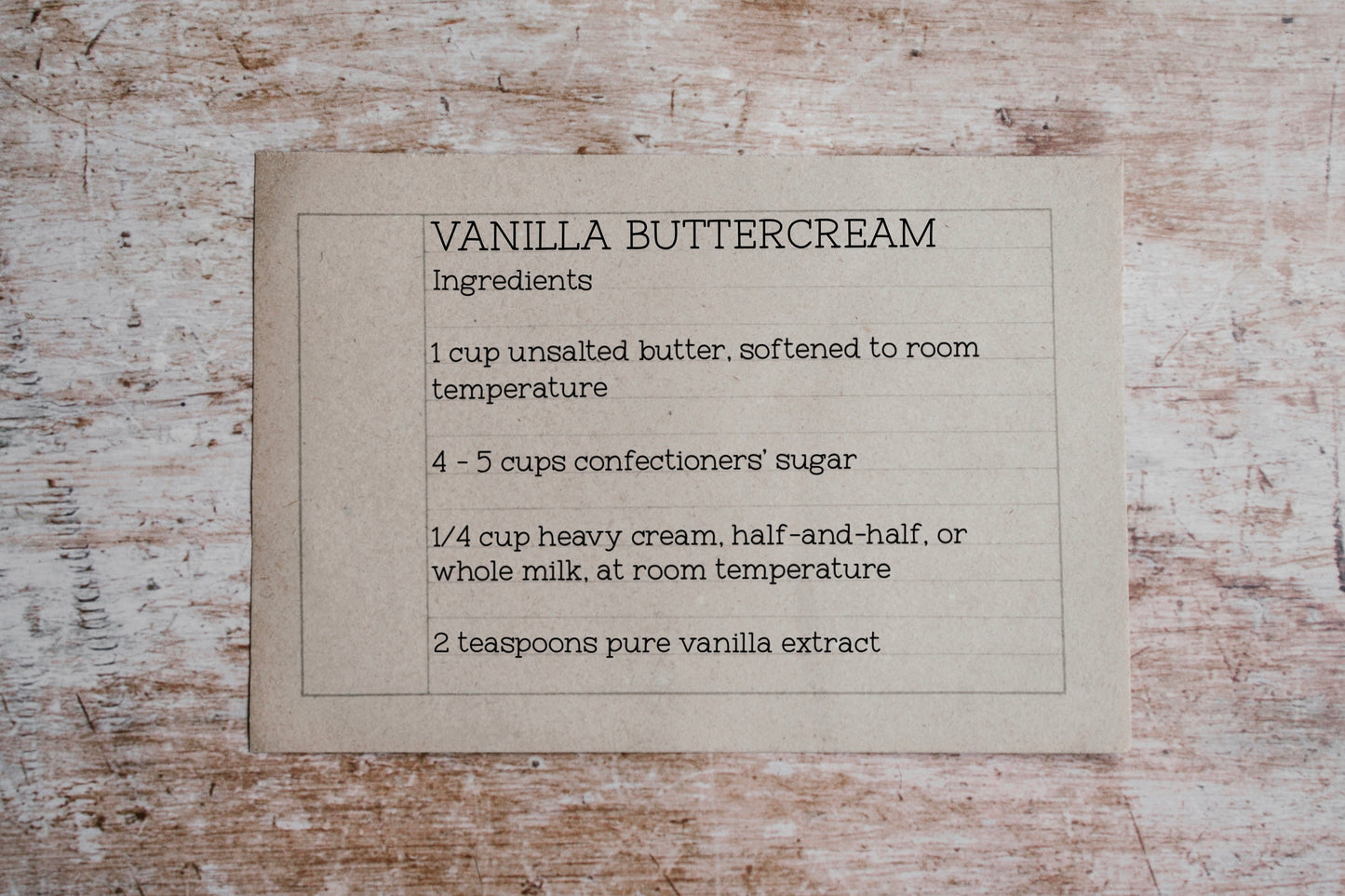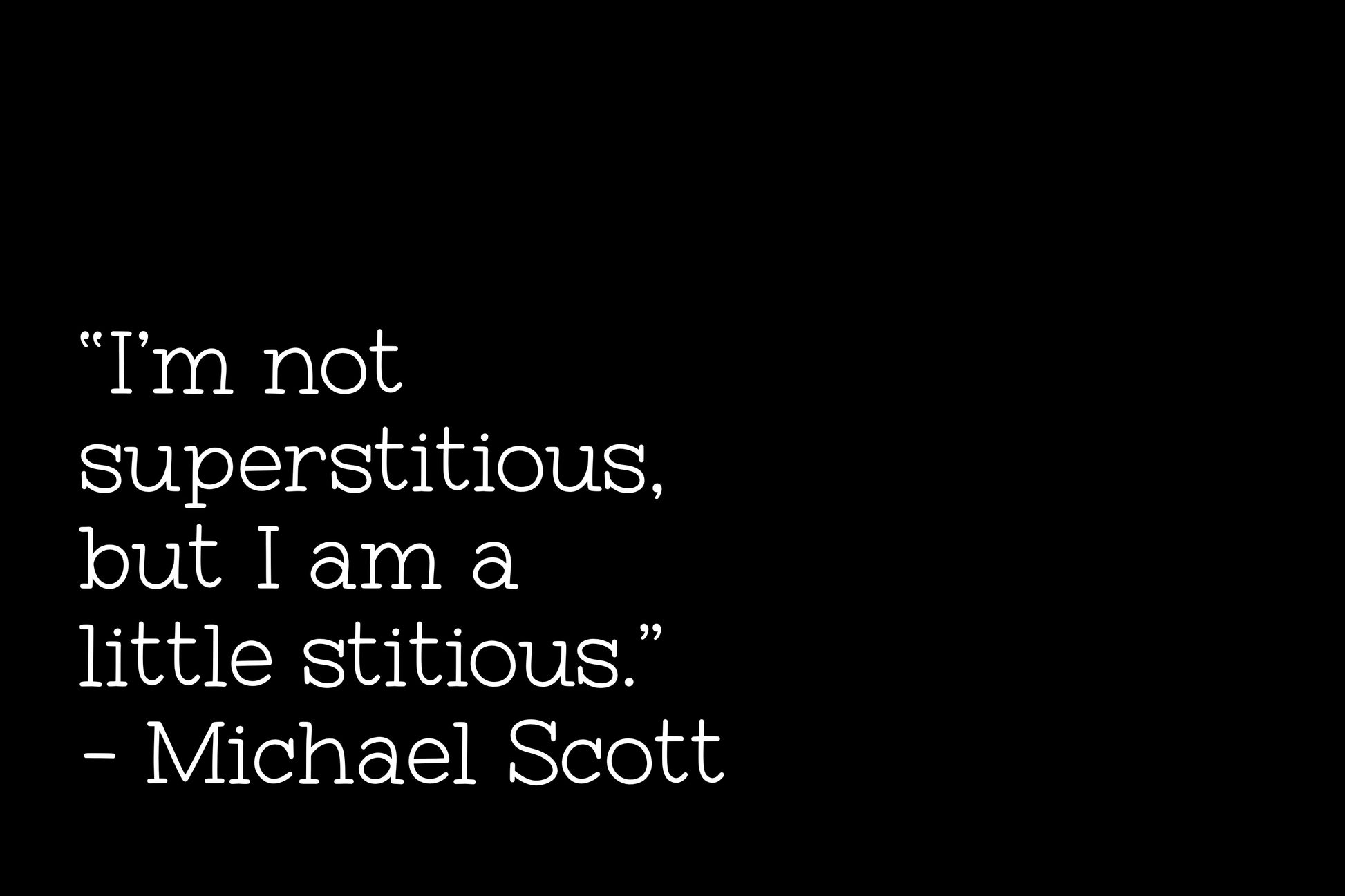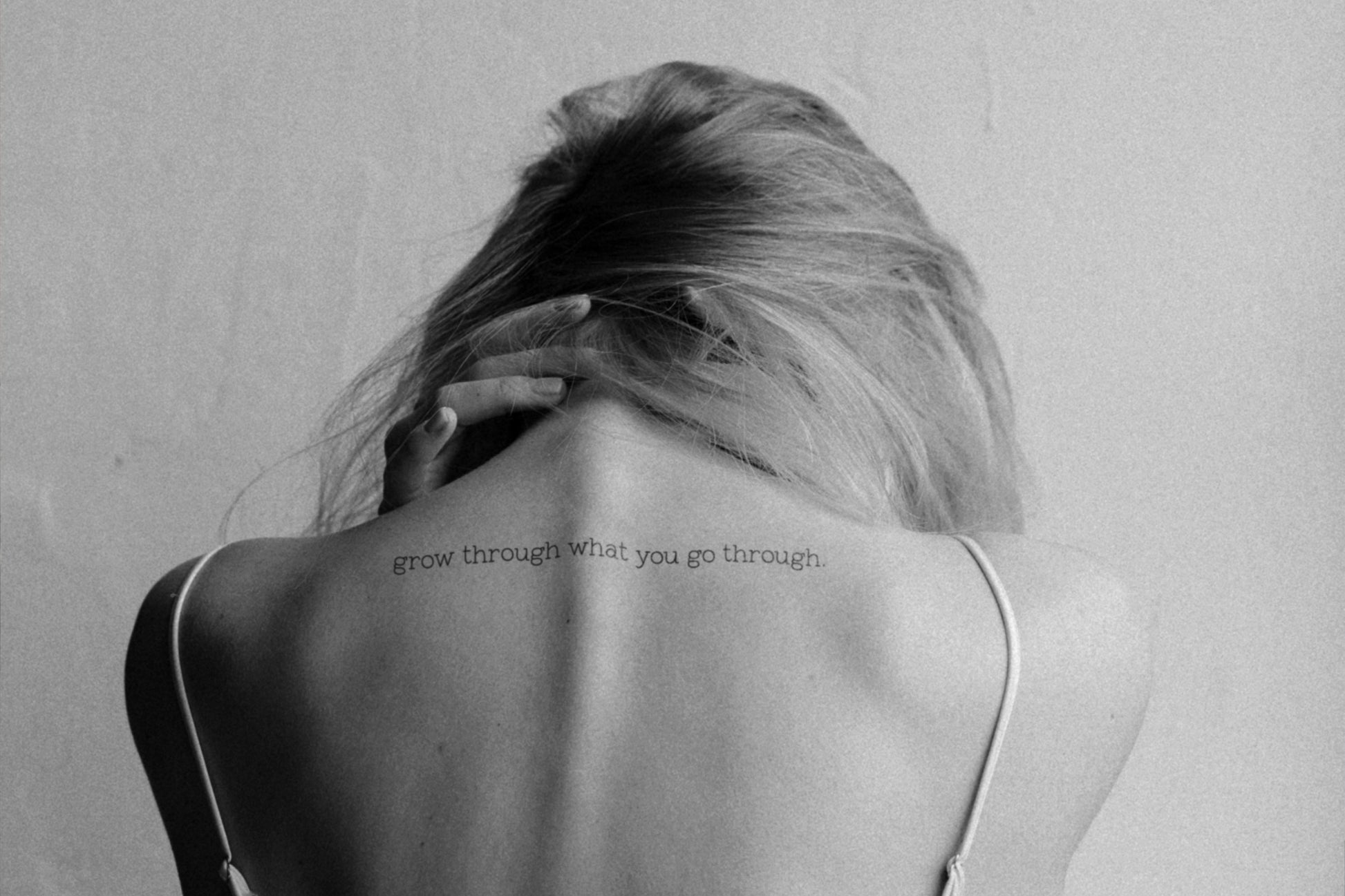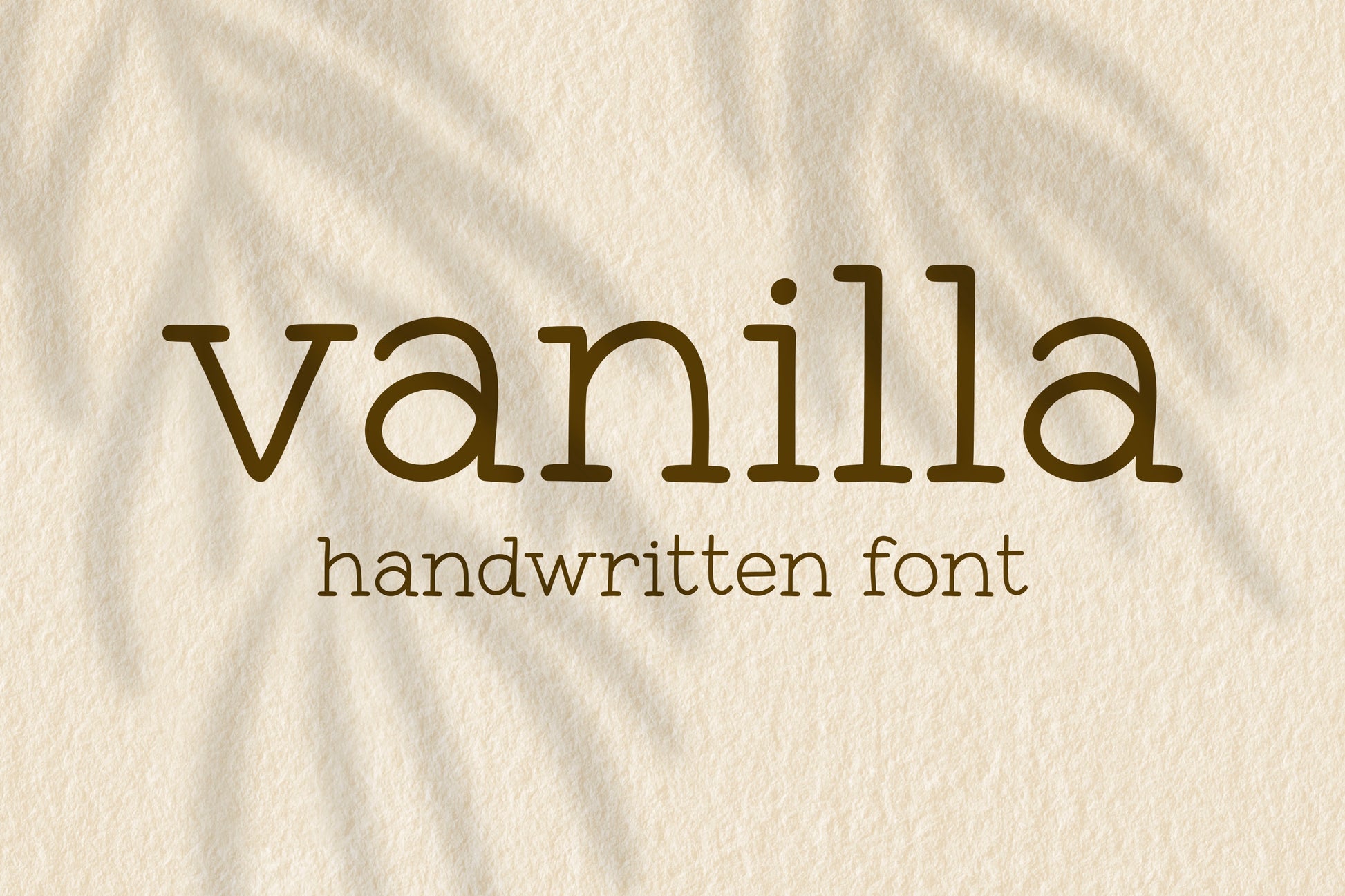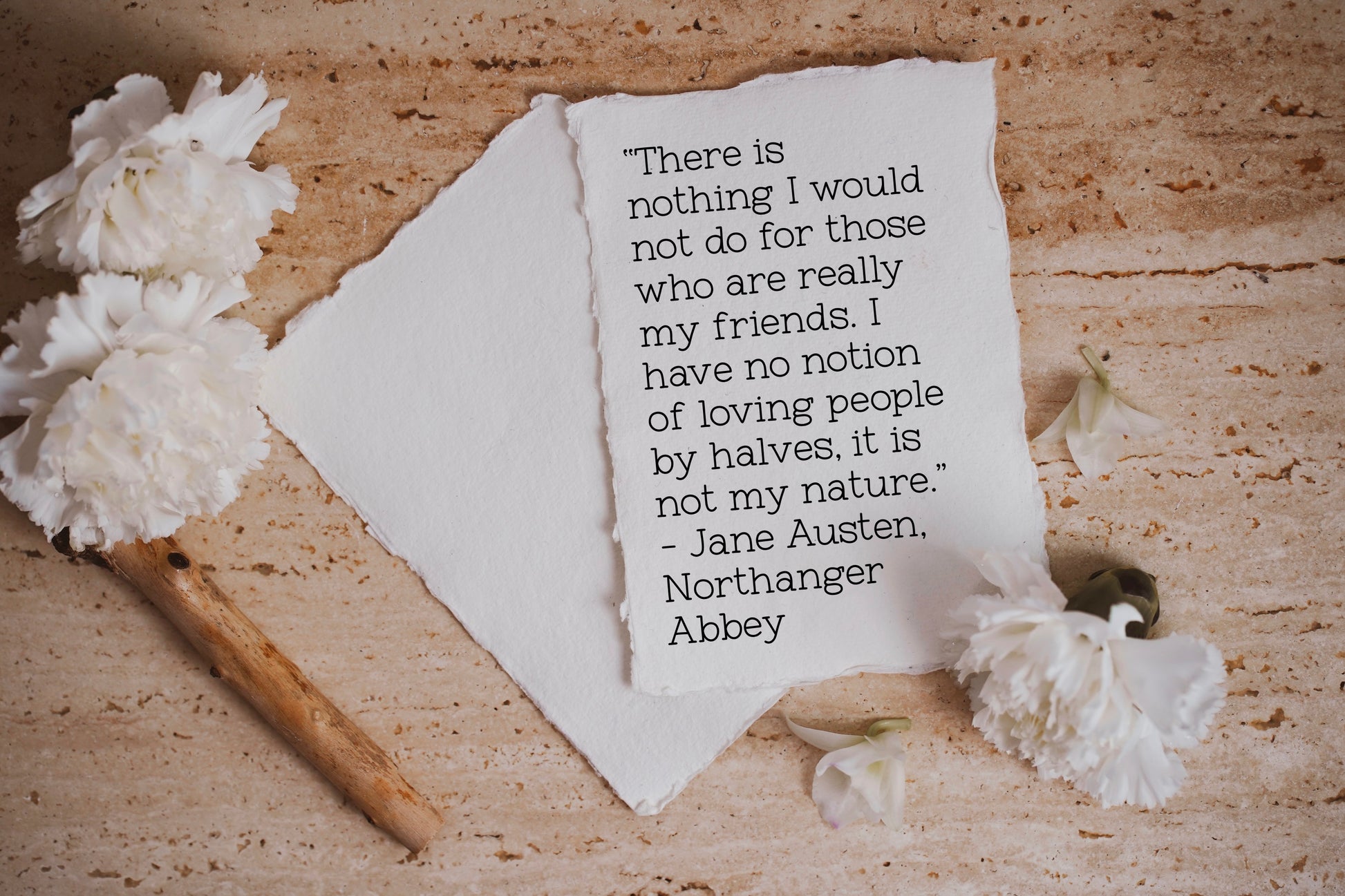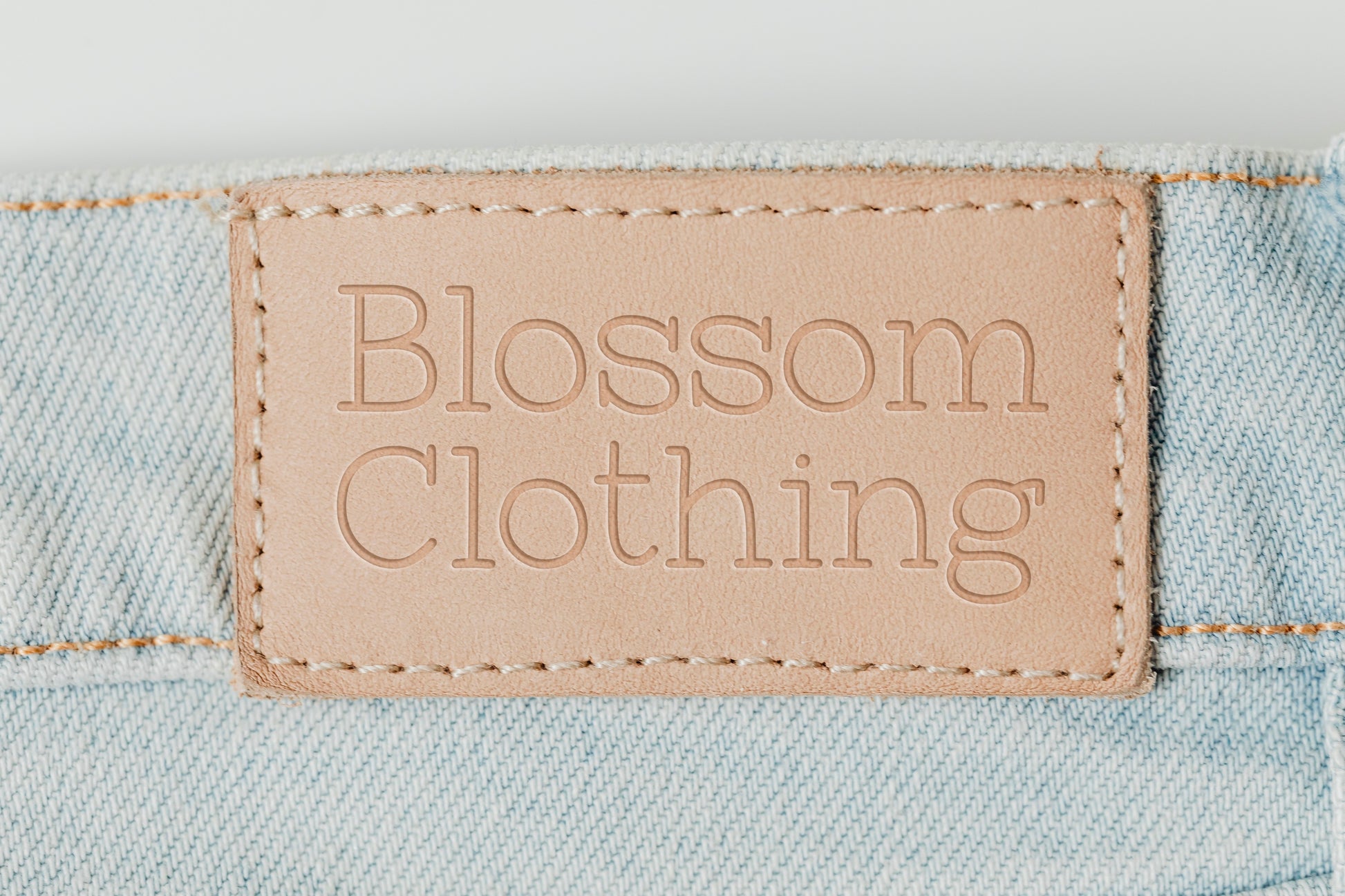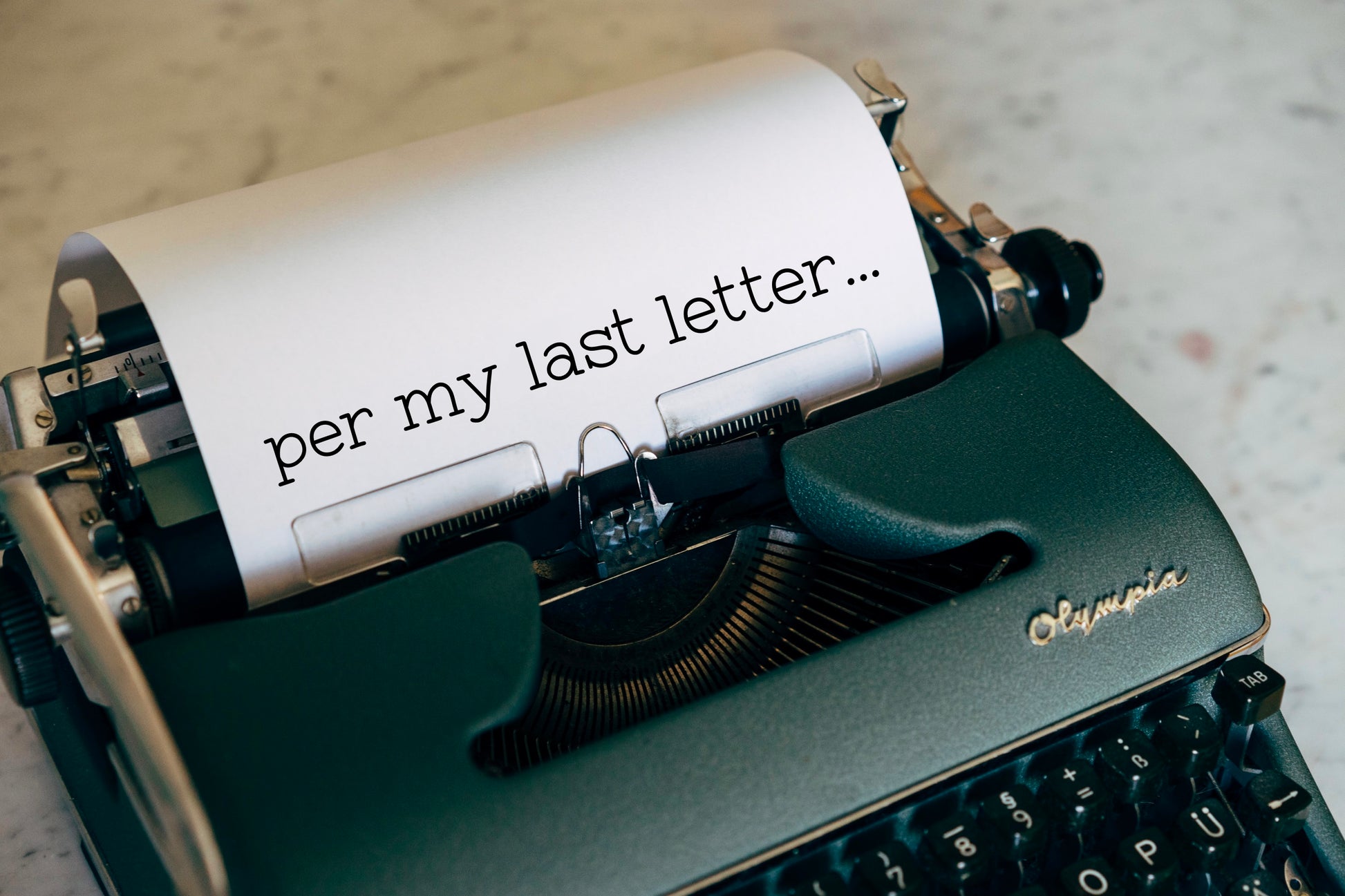
Vanilla Handwritten Typewriter Font
Introducing the Vanilla handwritten font. This light hand drawn typewriter font is perfect for truly any occasion. It can be used for elegant invitations, casual cards, playful designs, sophisticated logos, cute stickers, longs works of writing, and anything else you can think of!